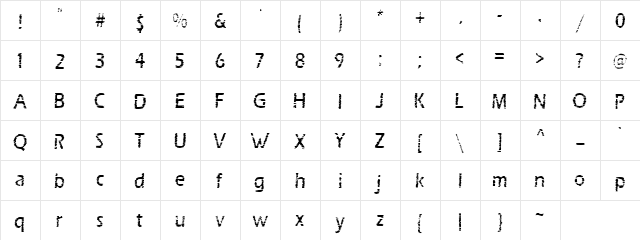
Scratch Board Regular
Design Context for Scratch Board Typeface
Scratch Board takes a measured approach to typography — its balanced proportions and neutral character make it a reliable workhorse for both digital and print work.